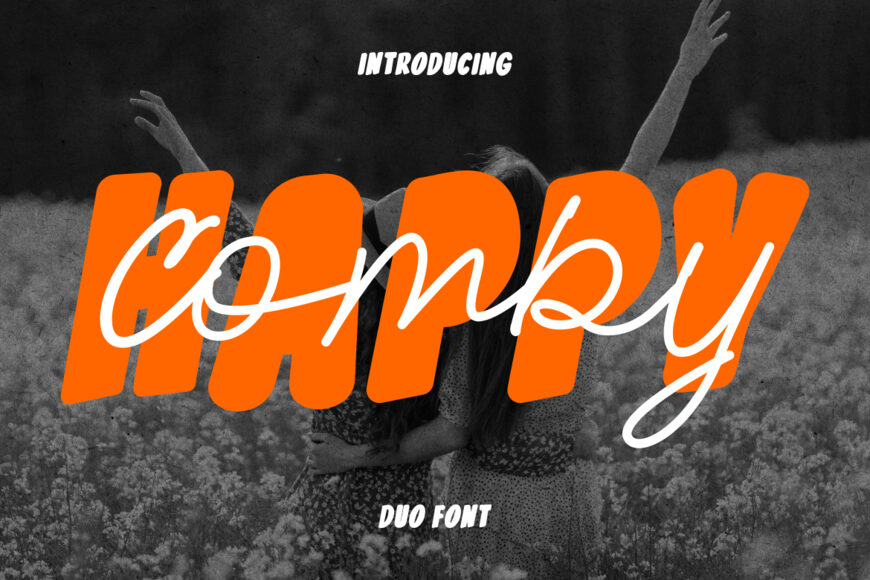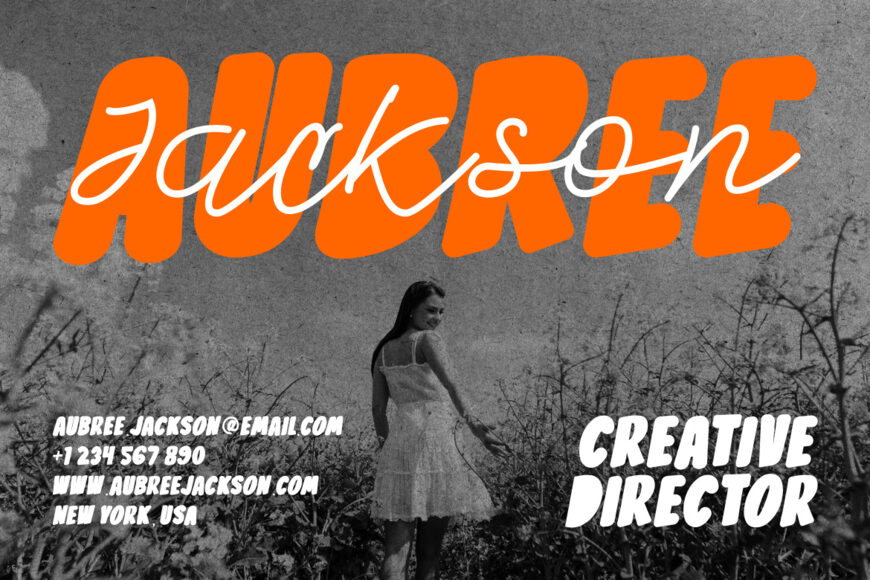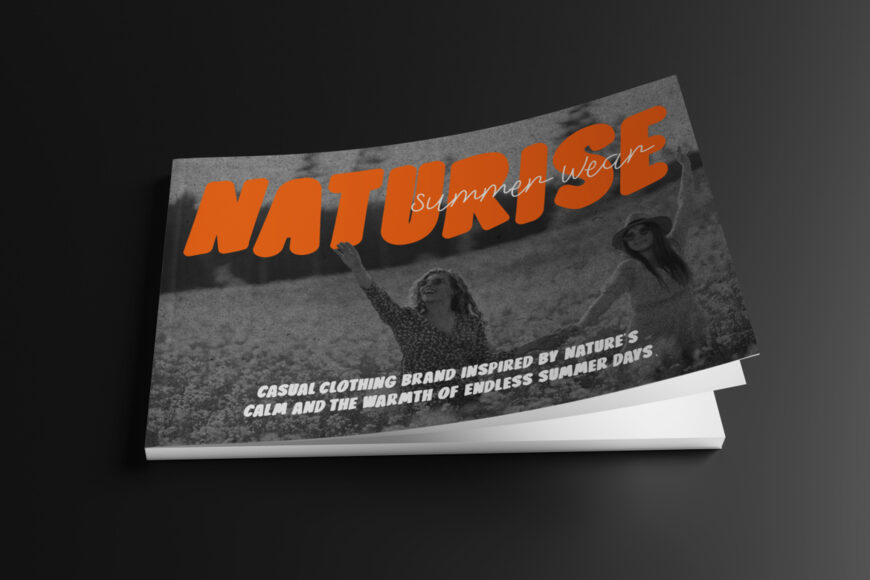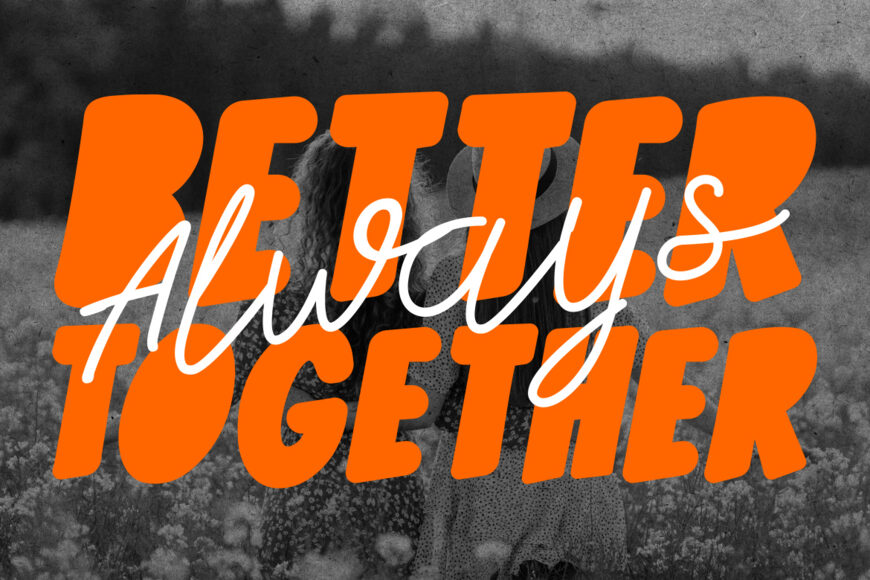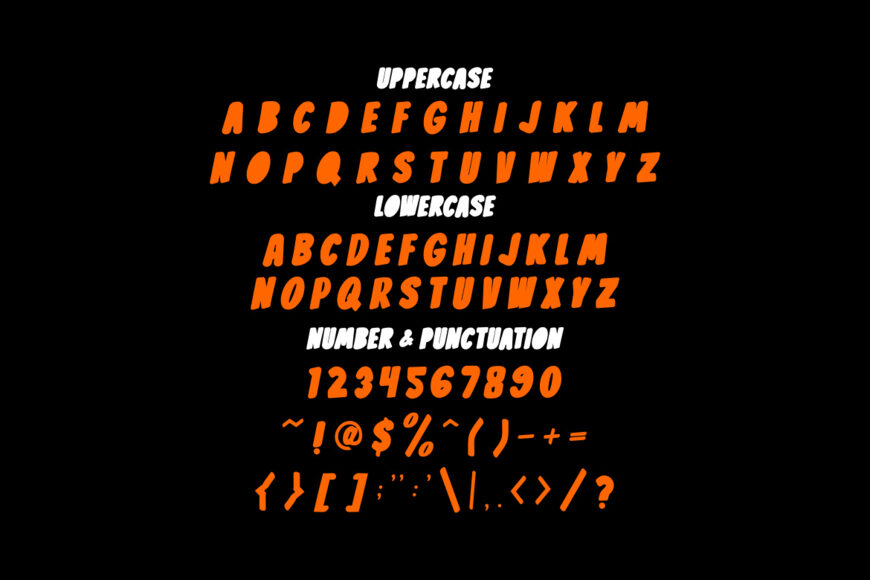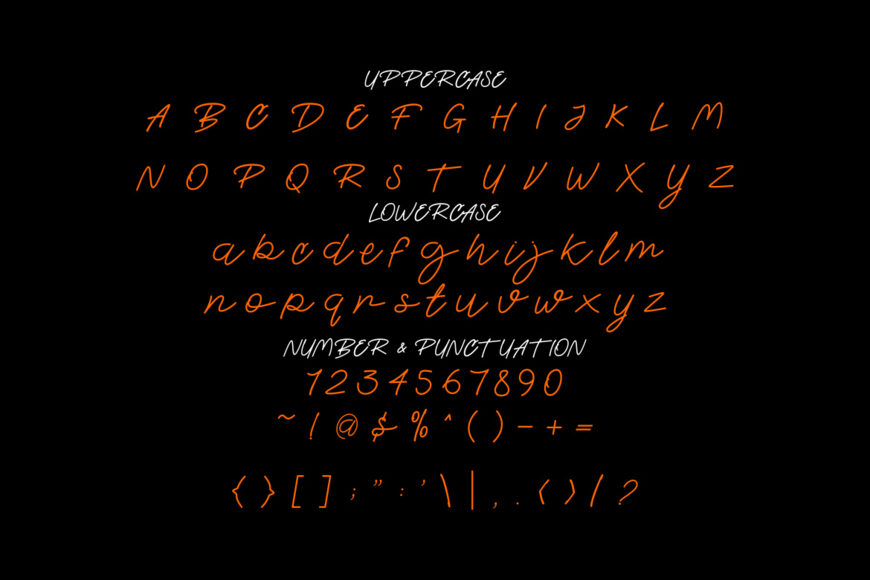
Happy Comby Font Duo
Happy Comby Duo Font combines a heavy display sans with a flowing script companion. The bold style features thick strokes, rounded corners, and compact proportions. Letters appear wide with short ascenders and descenders. This creates a solid and grounded silhouette. Stroke weight stays consistent, giving headlines strong visual presence.
The pairing creates contrast between strong structure and expressive flow. The overall style feels modern, playful, and confident. It leans toward contemporary branding rather than vintage themes. Happy Comby Duo Font works well for designers who need instant hierarchy and dynamic composition.